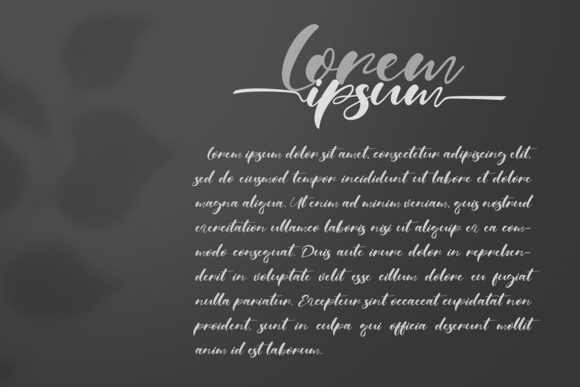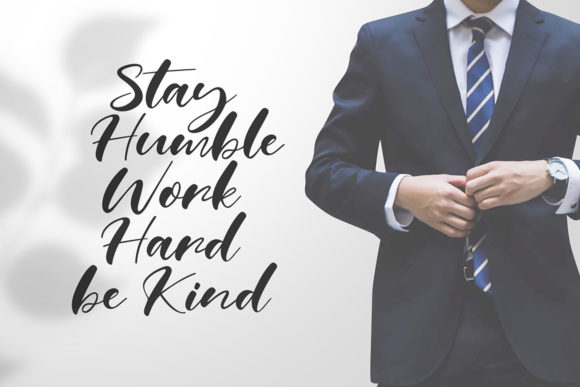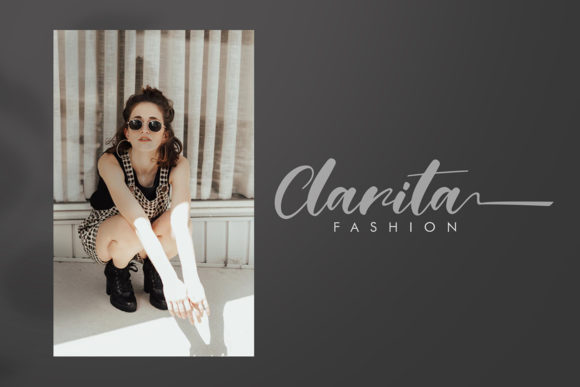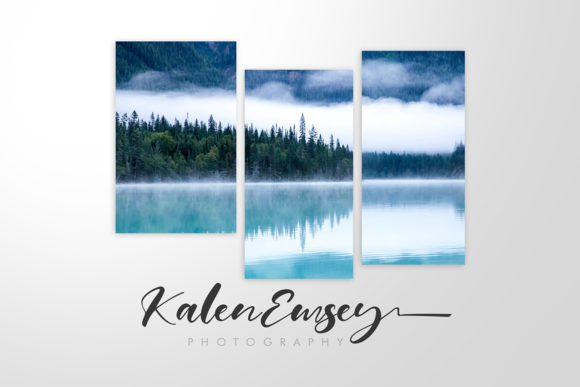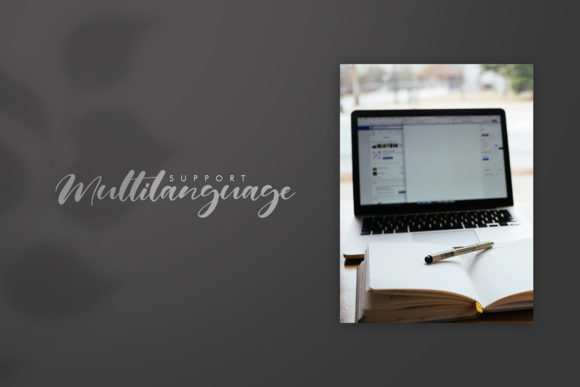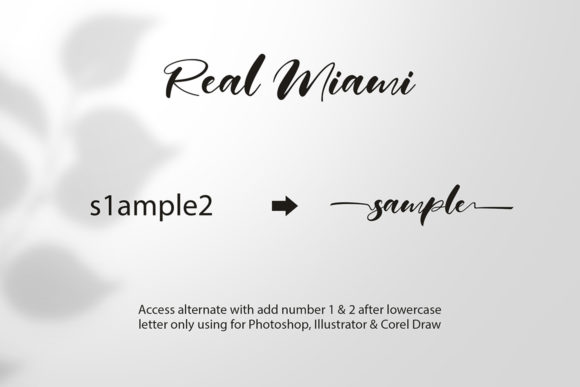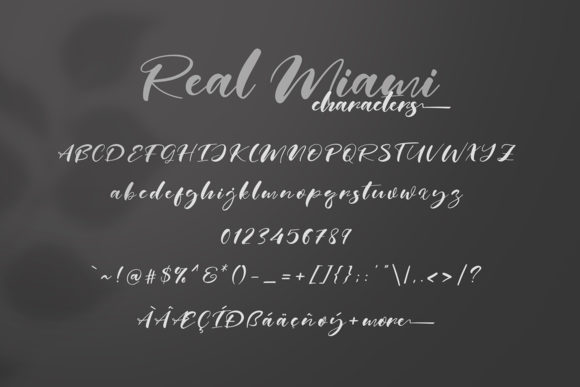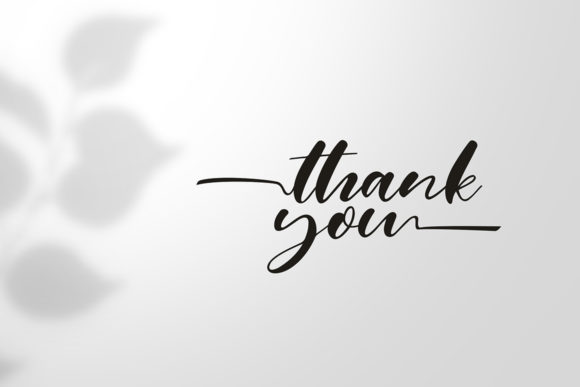
HomeScript FontsReal Miami Font Script Fonts Real Miami Font FacebookXPinterestWhatsApp Real Miami Font Poster 2 Real Miami Font Poster 3 Real Miami Font Poster 4 Real Miami Font Poster 5 Real Miami Font Poster 6 Real Miami Font Poster 7 Real Miami Font Poster 8 Real Miami Font Poster 9 About Real Miami Font Real Miami is a beautiful handwritten font with a joyful feel. Fall in love with its elegant, yet adorable charm. DOWNLOAD ON CREATIVE FABRICAThis font is sold and delivered by Creative Fabrica. Font Canyon may earn a commission if you buy through this link. People also explored Good Head Gloriant Font Sally Says Font Noah Font HT Profumeria The Geantdum Font Phoenix Script Trio Font Midnight Sleighride Font Parsley Sauce Font 445 0 TagsReal Miami Font Previous articleAyrton FontNext articleVictoria Font LEAVE A REPLY Cancel reply Comment: Please enter your comment! Name:* Please enter your name here Email:* You have entered an incorrect email address! Please enter your email address here Website: Save my name, email, and website in this browser for the next time I comment. Personal Use Free Rothwell Personal Use Free Read more about this font Vogue Font Personal Use Free Read more about this font Wadjet Personal Use Free Read more about this font My Shine Personal Use Free Read more about this font BLOG Best Fonts for T-Shirt Design – Top 2025 Picks In 2025, t-shirt design has become more than just fashion—it's a form of self-expression. Whether you're... Fonts That Capture the Spirit of New York City 5 Fonts That Will Dominate Design Trends in 2026 Free vs Paid Fonts: Why Investing in Premium Fonts Is Worth It